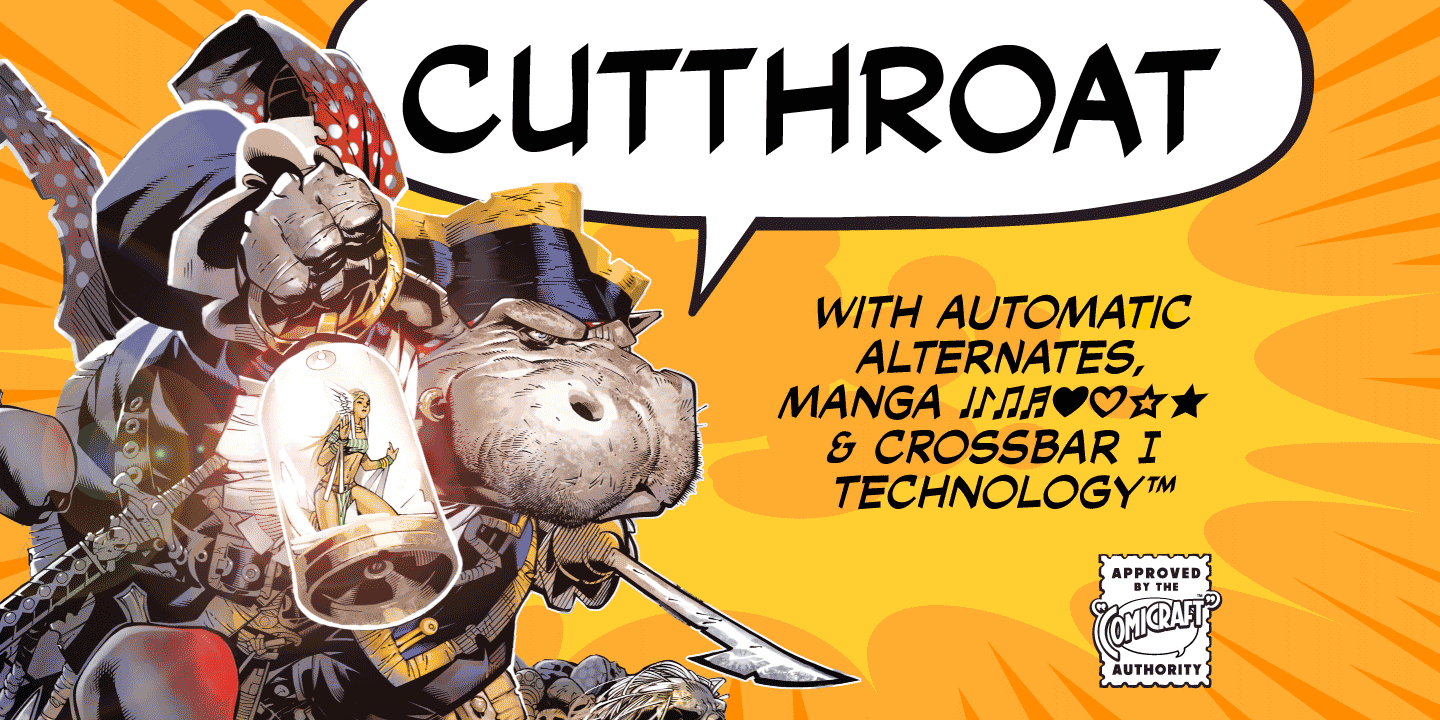
Cutthroat Font is perfect for aggressive competitive gaming logos, intense action movie titles, hardcore metal band branding, extreme sports event promotions, edgy streetwear fashion labels, rebellious motorcycle club identities, fierce combat sports marketing, underground music venue signage, aggressive automotive racing graphics, and bold rebellion-themed campaigns. Its sharp aggressive character makes it ideal for projects requiring intense edge and rebellious attitude authenticity.
What makes Cutthroat Font exciting is its fierce embodiment of aggressive attitude and rebellious spirit with sharp letterforms and edgy characteristics that capture the essence of competitive intensity and underground culture excellence. The font features razor-sharp cuts, aggressive stroke patterns, and intense character construction that create authentic rebellious atmosphere and fierce appeal. Its commanding personality brings power and attitude to contemporary designs while maintaining the clarity essential for competitive communications and edgy brand presentations. The carefully crafted aggressive elements ensure visual impact while preserving the distinctive character that embodies the essence of rebellious intensity and fierce excellence.
Cutthroat Font comes in multiple aggressive variations including Regular, Bold, Heavy, Razor, and Extreme styles. Each family member amplifies the distinctive fierce character while offering different levels of aggressive intensity and rebellious appeal. The complete font family includes alternate characters, edgy symbols, and sharp decorative elements that provide comprehensive tools for creating immersive aggressive design experiences and authentic rebellious brand storytelling.
Whether you're developing aggressive brands, competitive gaming projects, or rebellious entertainment ventures, Cutthroat Font Free Download provides the fierce intensity needed to communicate with edgy audiences and competitive communities who appreciate aggressive attitude and rebellious authenticity. The font's sharp appeal resonates with gamers, extreme athletes, and underground culture enthusiasts seeking authentic aggressive credibility and fierce sophistication. Its comprehensive character set includes edgy symbols and rebellious marks, making it perfect for creating complete aggressive brand systems and memorable fierce storytelling across diverse competitive applications and intensity-focused design projects that celebrate rebellious spirit and aggressive excellence.